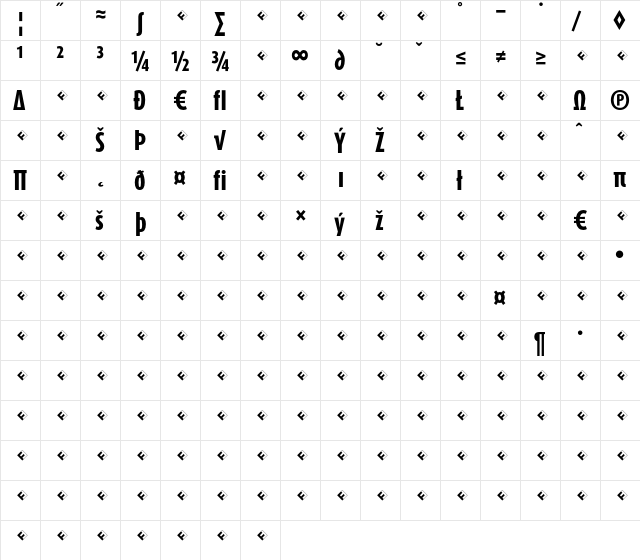
DaxCompact-ExtraBoldExpert Regular Font Preview
Design Context for DaxCompact-ExtraBoldExpert Typeface
DaxCompact-ExtraBoldExpert takes a measured approach to typography — its balanced proportions and neutral character make it a reliable workhorse for both digital and print work. The heavy weight commands attention and anchors typographic hierarchies. Its narrow stance lets it pack a punch even in space-constrained designs.